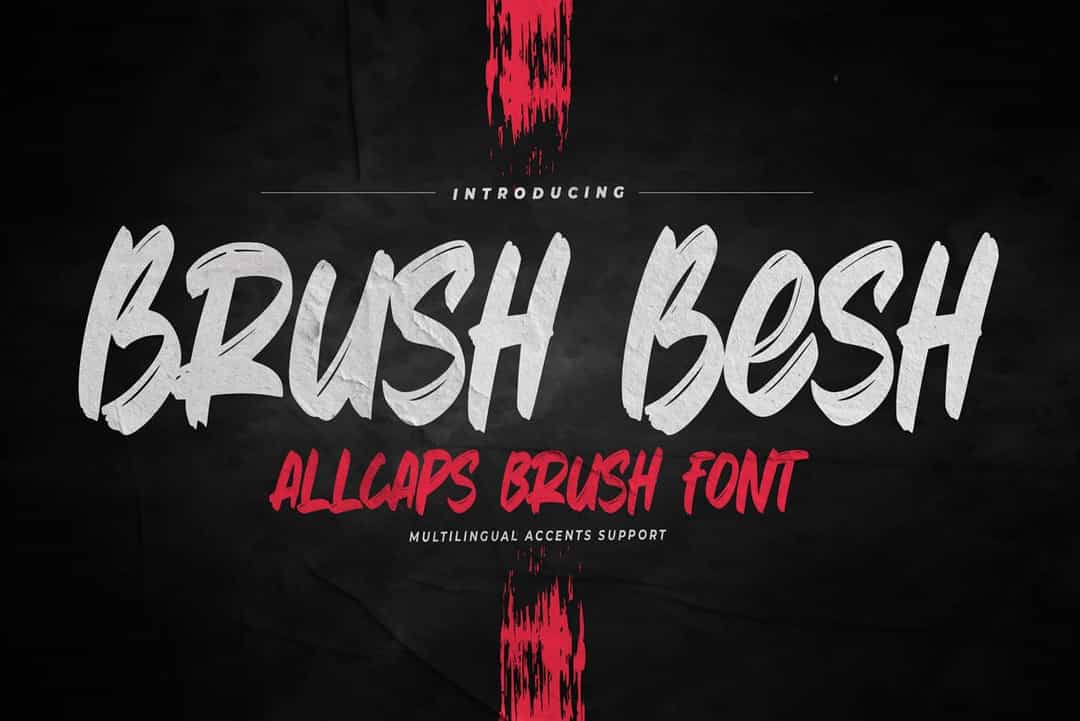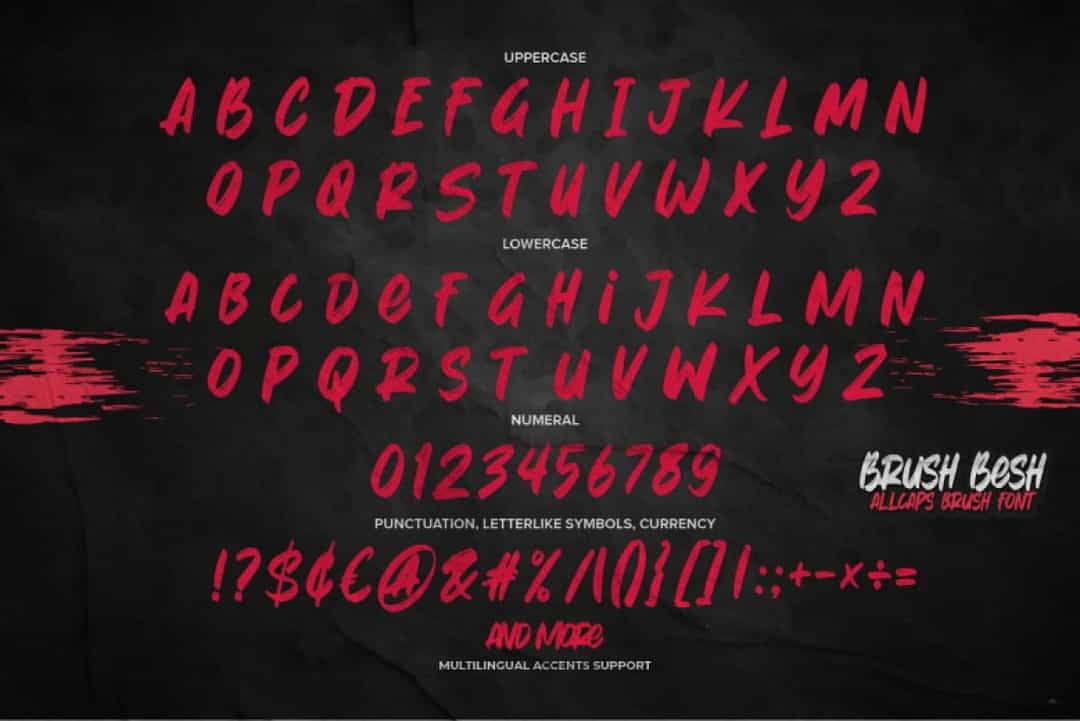
Brush Besh is an all-caps script brush font with a Textured Natural Style and classy design, featuring clean lines and dramatic motion. Perfect for logos, printed quotes, invitation cards, packaging for product headers or labels as well as posters and letterhead.